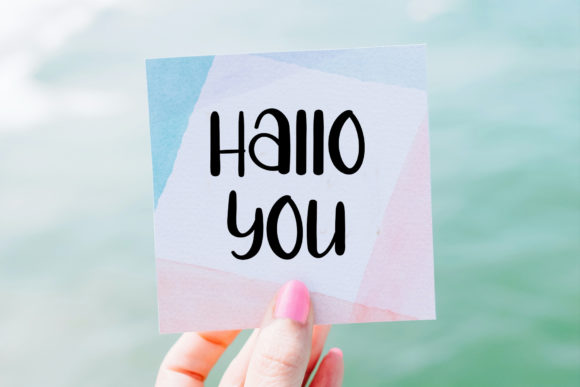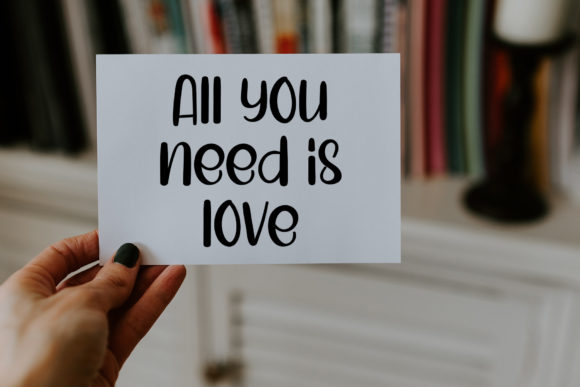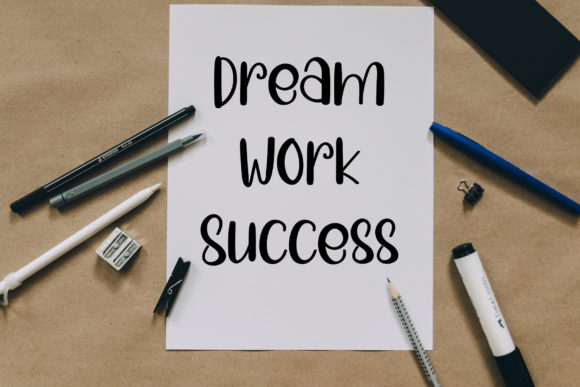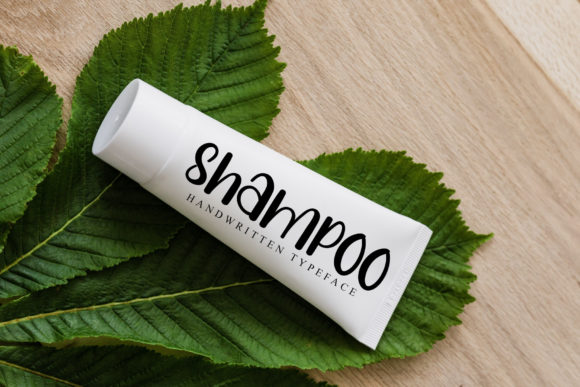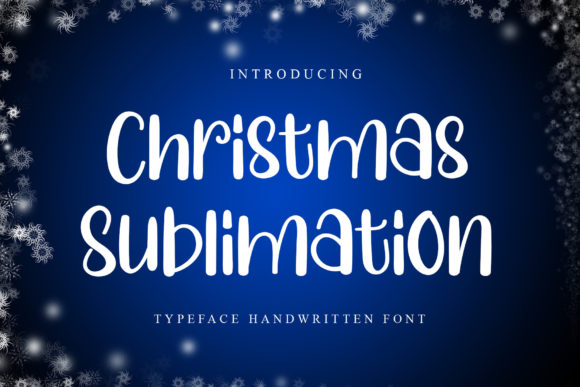
Introducing Christmas Sublimation Font: Elevate Your Designs with a Touch of Elegance
Are you a designer or crafter looking for a unique and elegant font to add a personal touch to your creations? Look no further than the Christmas Sublimation Font. This beautiful, handwritten font is perfect for a variety of design projects, from wedding invitations and greeting cards to billboards, logos, and business cards.
What Makes Christmas Sublimation Font Special?
Christmas Sublimation Font is a one-of-a-kind, handwritten font that boasts a varied baseline, giving it a natural, hand-made touch. This distinctive feature allows you to create spectacular designs that will make your ideas look more real and authentic. Whether you’re working on a wedding invitation, a logo, or a business card, this font is sure to add a touch of elegance and sophistication.
One of the best things about Christmas Sublimation Font is its versatility. It’s perfect for a wide range of design projects, including:
- Wedding invitations: Add a touch of romance and elegance to your wedding invitations with this beautiful font.
- Greeting cards: Create personalized and heartfelt greeting cards for any occasion.
- Billboards: Make a statement with eye-catching billboards that showcase your brand or message.
- Logos: Create a unique and memorable logo for your business or brand.
- Business cards: Stand out from the crowd with professional and stylish business cards.
Why Choose Christmas Sublimation Font?
So why choose Christmas Sublimation Font over other fonts? Here are just a few reasons:
- Unique and elegant: This font is truly one-of-a-kind, with a unique and elegant style that’s sure to impress.
- Handwritten touch: The varied baseline and natural, hand-made touch give this font a warm and personal feel.
- Versatile: Use this font for a wide range of design projects, from wedding invitations to billboards.
Tips for Using Christmas Sublimation Font
Here are a few tips for getting the most out of Christmas Sublimation Font:
- Experiment with different sizes: This font looks great in a variety of sizes, from small and delicate to large and bold.
- Pair with other fonts: Try pairing Christmas Sublimation Font with other fonts to create a unique and eye-catching design.
- Use for headlines and body text: This font is perfect for both headlines and body text, making it a great all-around choice.
If you’re looking for a unique and elegant font to add a personal touch to your designs, look no further than Christmas Sublimation Font. With its varied baseline and natural, hand-made touch, this font is perfect for a wide range of design projects. Whether you’re a designer or crafter, this font is sure to become a favorite in your collection.